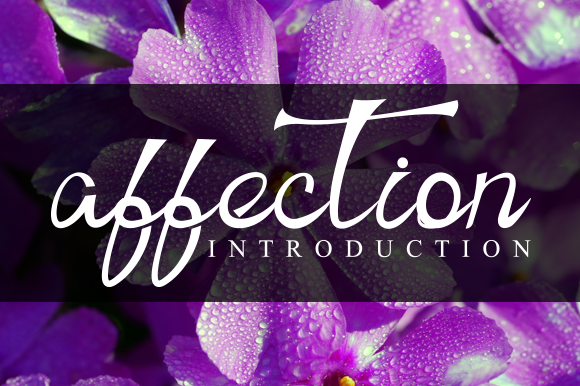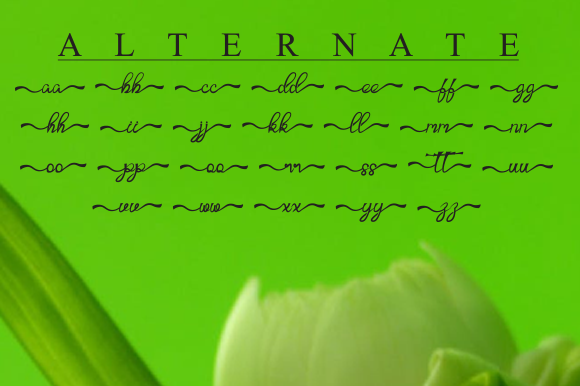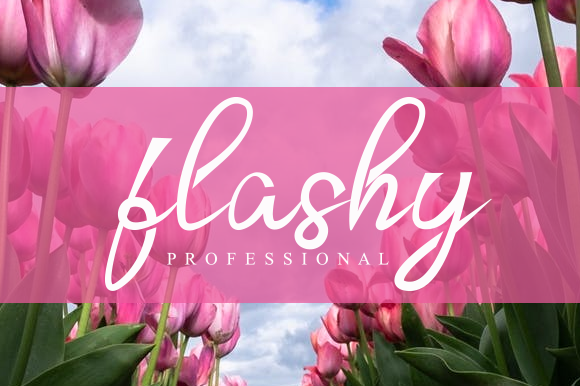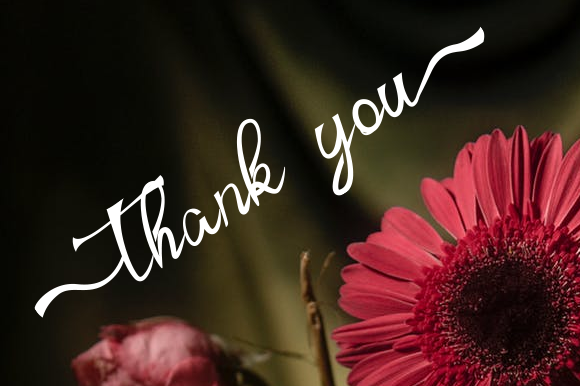
Introduction to Batali Font
Batali is a friendly flowing script font with a romantic style.
Fall in love with its playful charm .
Key Features of Batali Font
Why Choose Batali Font?